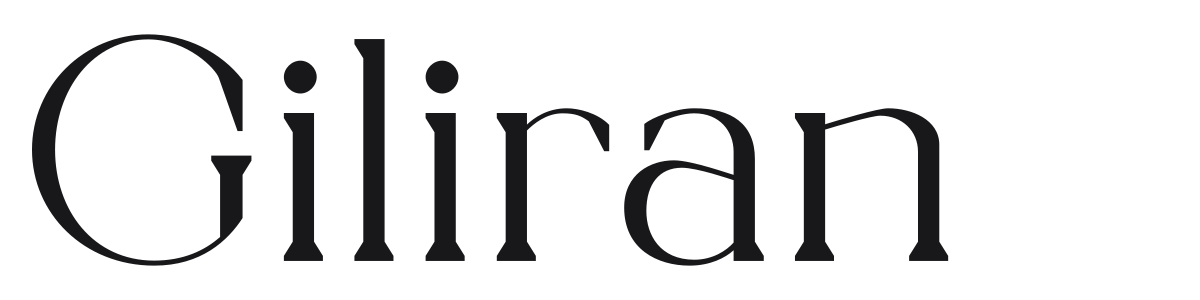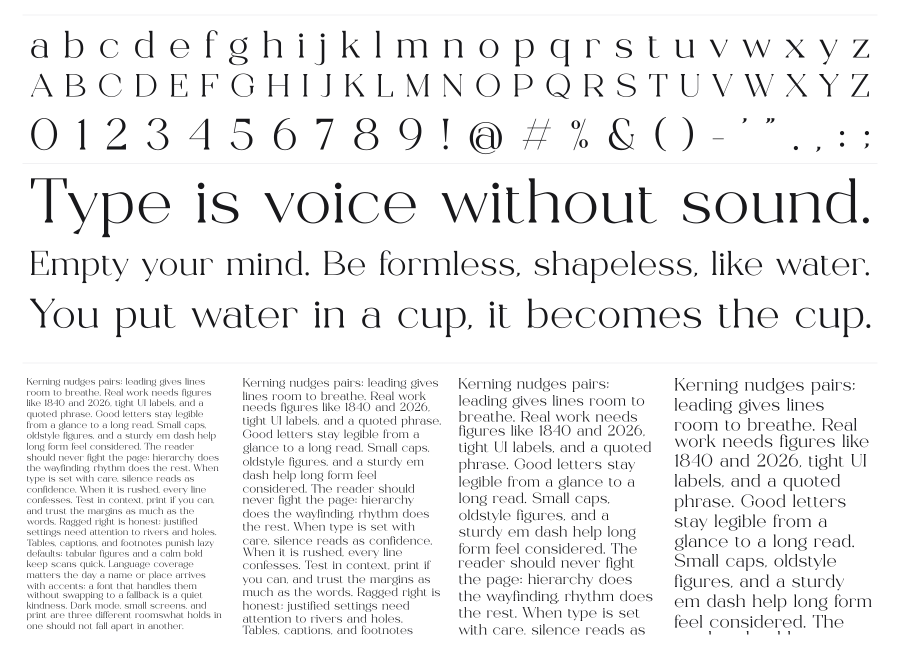
Giliran
Giliran is a high-contrast modern serif drawing from the Didone tradition, with dramatic shifts between thick stems and hairline thins. The wide, open spacing amplifies the airy, refined character of each letter, giving it a distinctly editorial and luxurious feel. It belongs on fashion covers, perfume packaging, and identity work where elegance is the brief.